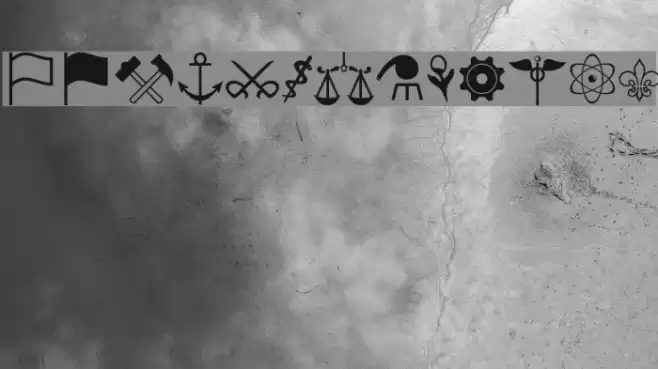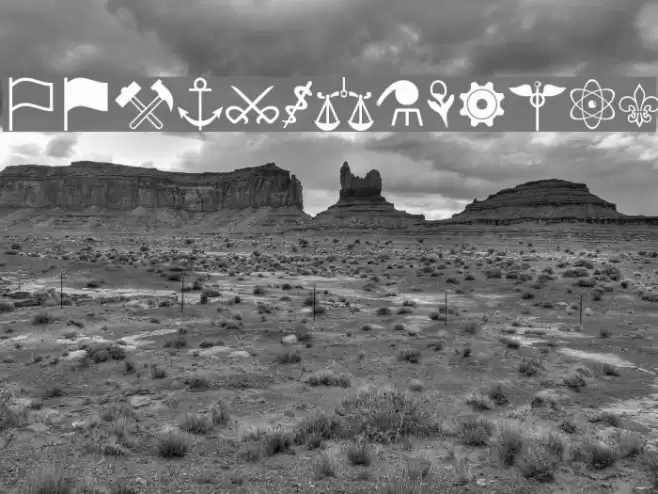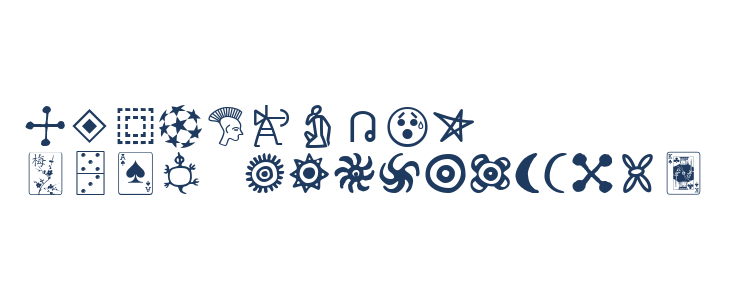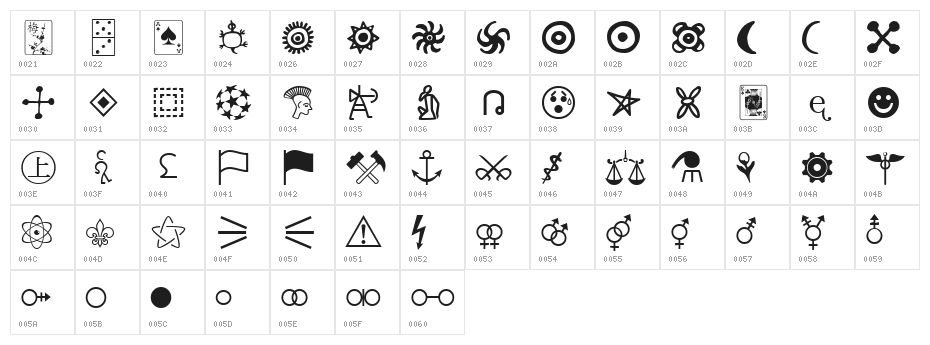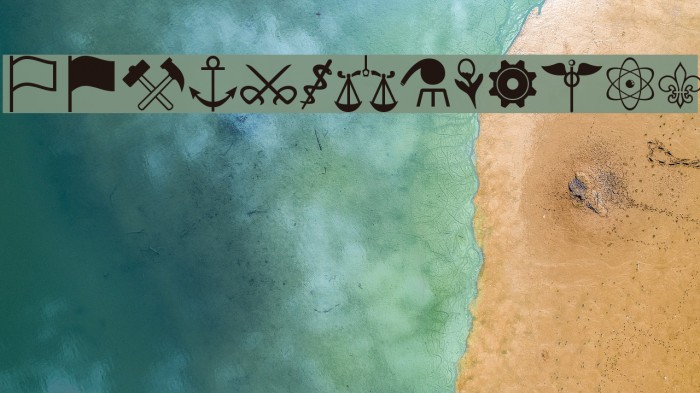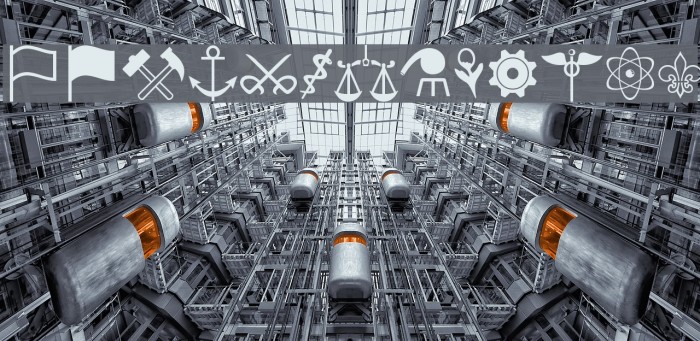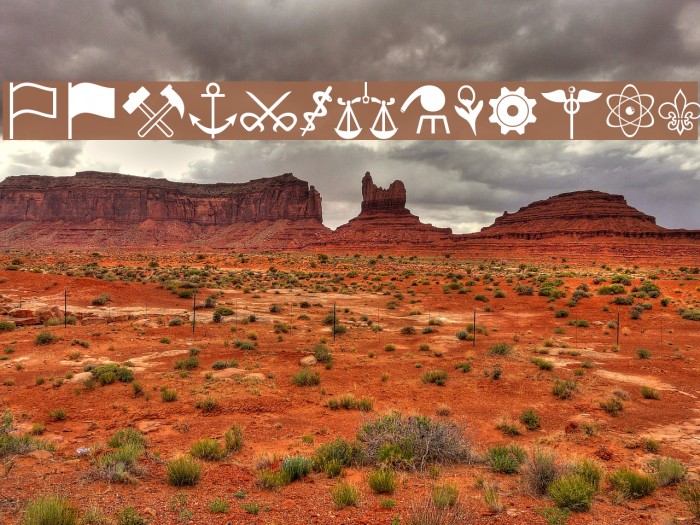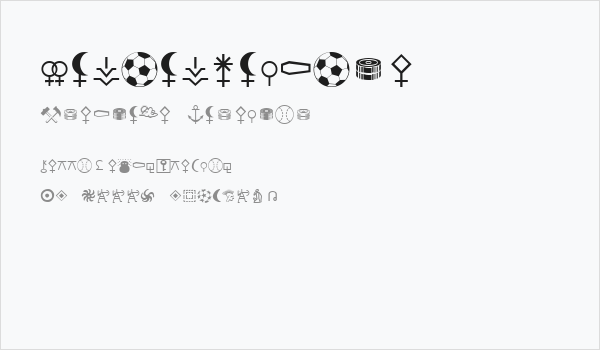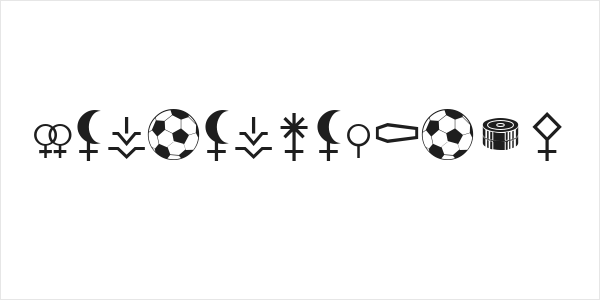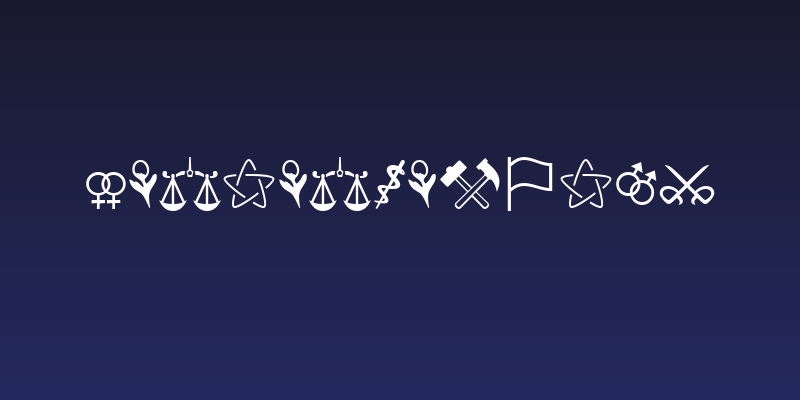
A decorative dingbat and symbol font featuring a wide variety of pictograms, including flags, anchors, gender symbols, weather icons, geometric shapes, and playing cards. The glyphs are bold, highly stylized, and designed for visual communication rather than text.
A bold decorative symbol font with diverse pictograms from Uncategorized fonts.
- Proposed Projects: Infographics, educational materials, signage, visual aids, creative design projects.
- Use Case: Icons, visual symbols, creative graphics, non-textual communication.